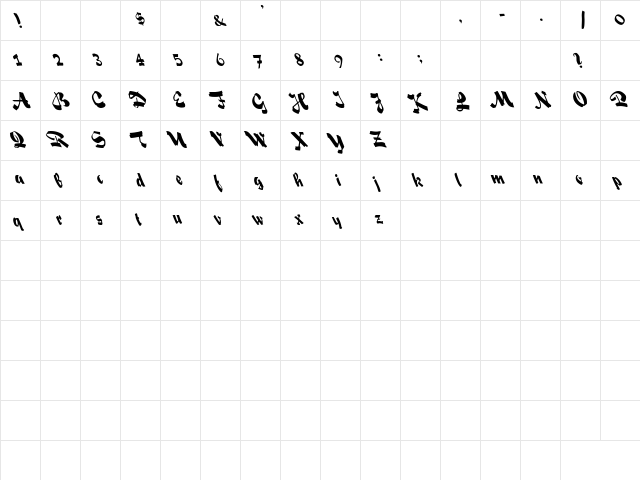
Fox Script Lefty Regular
Design Context for Fox Script Lefty Typeface
Fox Script Lefty flows with the natural rhythm of handwritten lettering, making it ideal for designs that call for warmth and personal expression.
Font Pairing: Combine Fox Script Lefty with a simple geometric sans for maximum contrast — the tension between flowing curves and clean structure is a classic typographic pairing.
Pro Tip: Use Fox Script Lefty for short runs of text — names, titles, or taglines. Extended body copy in script faces tires the eye quickly.